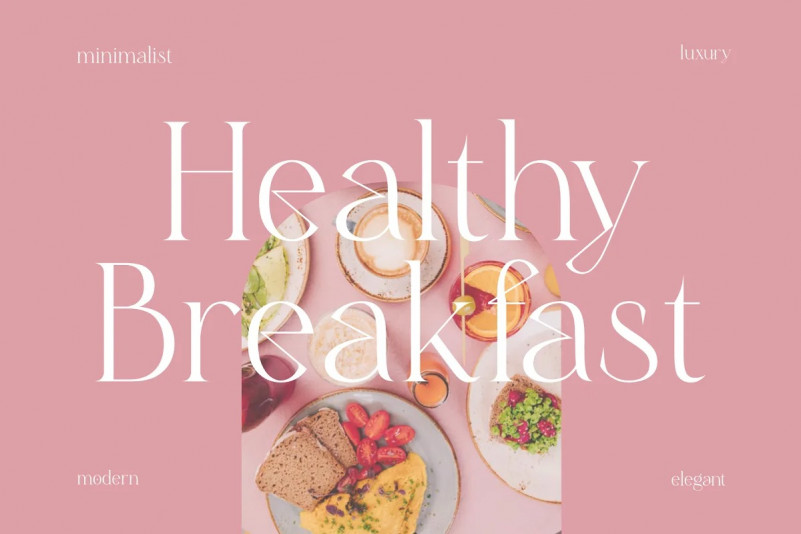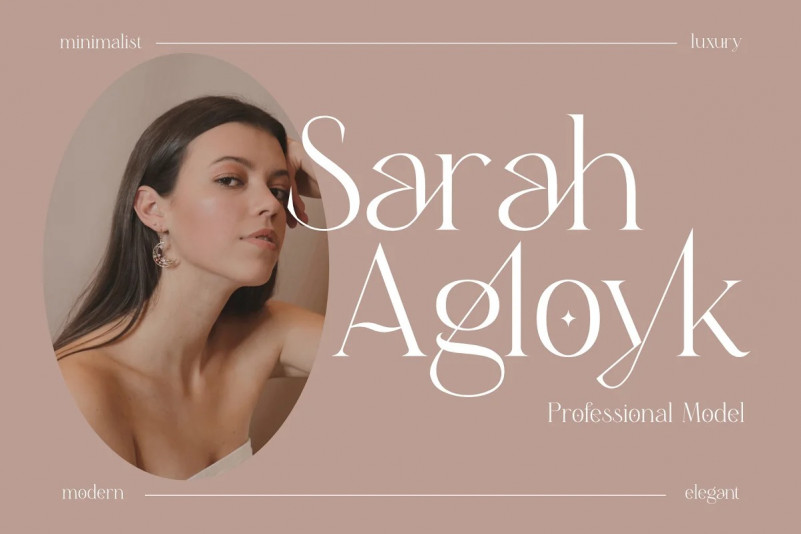
Sageyl Sageyl Font
Proudly present Sageyl Typeface created by Sealoung, A serif modern and classic typeface that his own unique style & modern look. It loops and swoops in a delicate dance that is never boring. Use this dainty serif as a memorable logotype or header and pair it with something contrasting and clean. This typeface is perfect for an elegant & luxury logo, book or movie title design, fashion brand, magazine, clothes, lettering, quotes, and so much more.